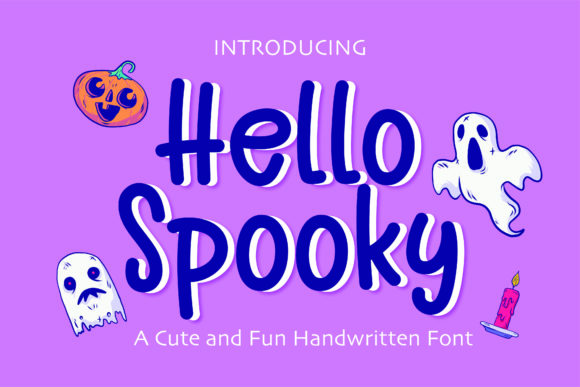
Journey into a world of whimsy and charm with Hello Spooky, a font that evokes the nostalgia and magic of childhood dreams. This enchanting script font, crafted with meticulous care by GoodMoodType, dances across your designs like a playful melody.
Let your imagination soar as you explore the boundless possibilities of Hello Spooky. From whimsical cartoon characters to captivating game titles, this font adds a touch of joy and wonder to every project you undertake. Its friendly and approachable nature makes it perfect for capturing the innocence and playfulness of childhood.
Elevate your designs to new heights with Hello Spooky. Whether you're creating heartfelt quotes, captivating book covers, or eye-catching posters, this script font adds a touch of warmth and personality that resonates with audiences of all ages. It's the perfect choice for designers seeking a font that embodies the magic and charm of childhood.
So embark on a creative adventure with Hello Spooky, the font that awakens the child within you. Let your designs come alive with joy, laughter, and a sprinkle of enchantment.